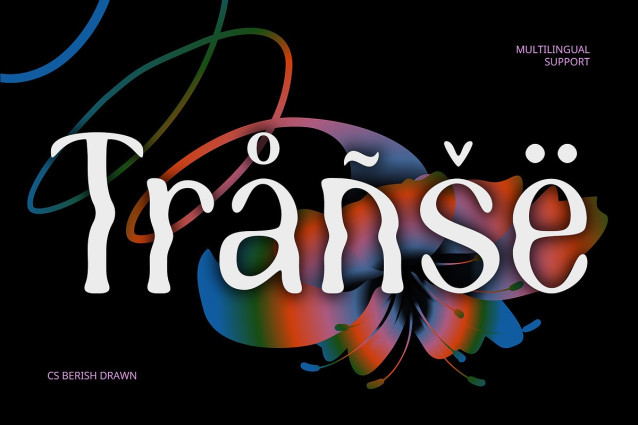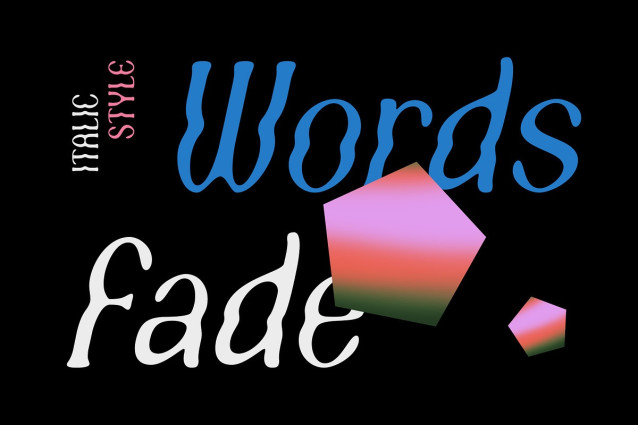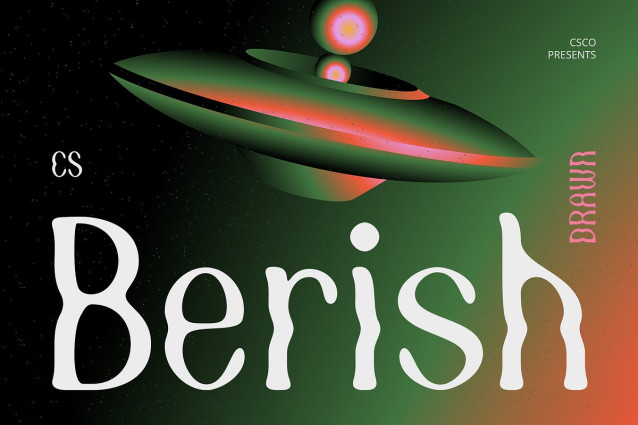
CS Berish Drawn Font
CS Berish Drawn Font is a modern display serif font that dares to push the boundaries of typography. It fuses classic serif principles with bold psychedelic energy, creating letterforms that are curvy, unconventional, and filled with personality.
Drawn Texture for Organic Creativity What sets this artistic font apart is its unique hand-drawn effect, which adds an organic, rough-hewn quality to each letter. This subtle texture introduces a sense of authenticity and handcrafted artistry, making the font feel alive and deeply personal. It balances the surreal nature of its design with a grounded, human touch that enhances its visual impact.
An Artistic Fusion of Retro and Modern The font channels inspiration from retro 60s–70s psychedelic visuals while reimagining them with a modern sensibility. The result is a typeface that feels both nostalgic and forward-thinking. This hybrid makes this playful font ideal for projects that want to stand out with a sense of experimental charm and contemporary design precision.
Perfect for Expressive and Unforgettable Visuals This trippy font is made for creatives who aren’t afraid to be bold. It shines in applications like music festival posters, experimental album covers, art-forward branding, editorial spreads, and cultural event visuals. Whether your goal is to mesmerize, challenge convention, or simply leave a strong visual impression.